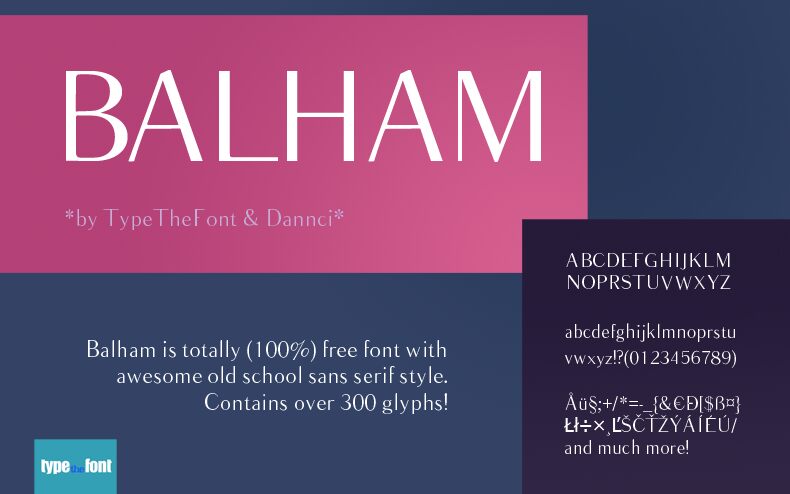
Balham by Type The Font is a free high-contrast serif with slender proportions and an elegant editorial air. Broad curves meet hairline strokes, giving the clean lettering a poised, dramatic silhouette.
Fashion publishing is its strongest setting, especially for magazine mastheads and cover lines with refined scale. The formal shapes also suit luxury branding, fragrance packaging, and invitations, where their contrast suggests ceremony rather than ornament. In a brand identity, Balham can form a polished nameplate linking editorial style with upscale products.